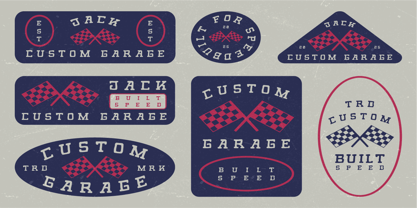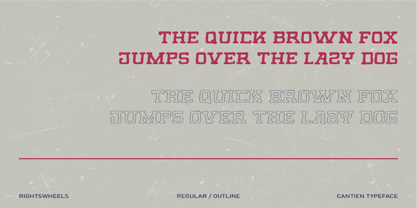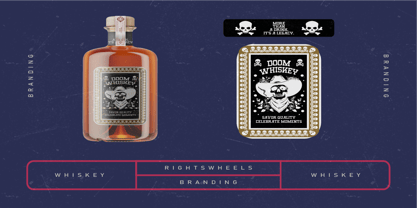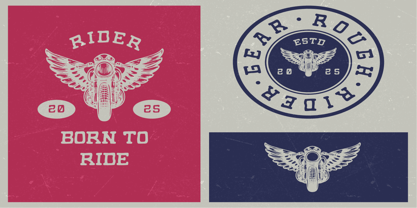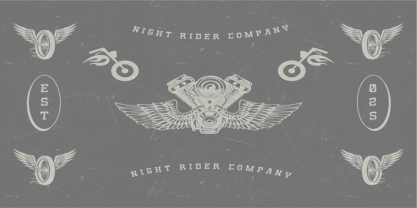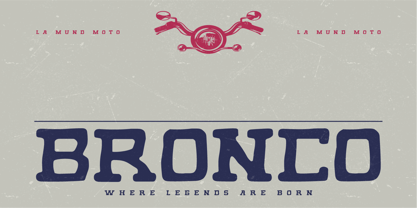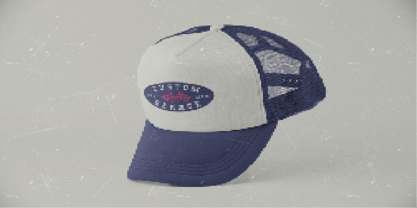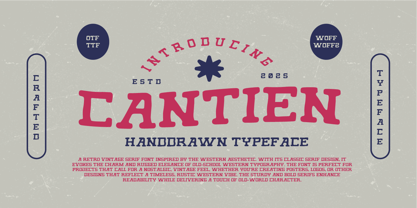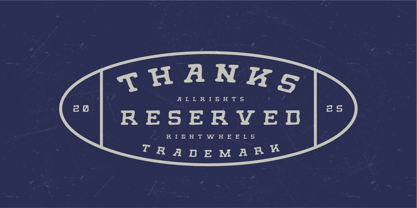
Cantion
La famille de polices Cantion a été conçue par et publiée par Rightwheels. Cantion contient 1 styles. En savoir plus sur cette famille
Cantion is a retro vintage serif font inspired by the Western aesthetic. With its classic serif design, it evokes the charm and rugged elegance of old-school Western typography. The font is perfect for projects that call for a nostalgic, vintage feel, whether you're creating posters, logos, or other designs that reflect a timeless, rustic Western vibe. The sturdy and bold serifs enhance readability while delivering a touch of old-world character.